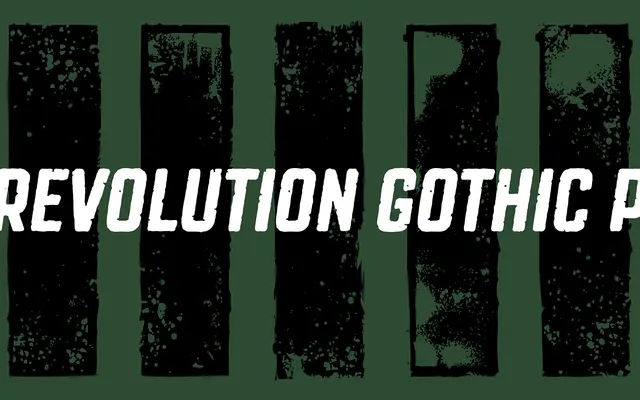
Revolution Gothic P
A hand-distressed companion to Revolution Gothic, designed to replicate the weathered texture of aged propaganda posters from the 1960s to 1980s.
Built on the Revolution Gothic family, itself an extended reworking of PAG Revolucion from Prop-A-Ganda (2008), this version applies careful hand-distressing to each glyph to mimic naturally worn print. Four styles cover Roman, Italic, Bold and Bold Italic. Best suited to poster work, vintage branding and editorial contexts where authentic surface degradation is part of the brief.
A hand-distressed grotesque display face inspired by propaganda poster lettering; the weathered texture and vintage styling push it firmly into display territory rather than functional sans-serif.